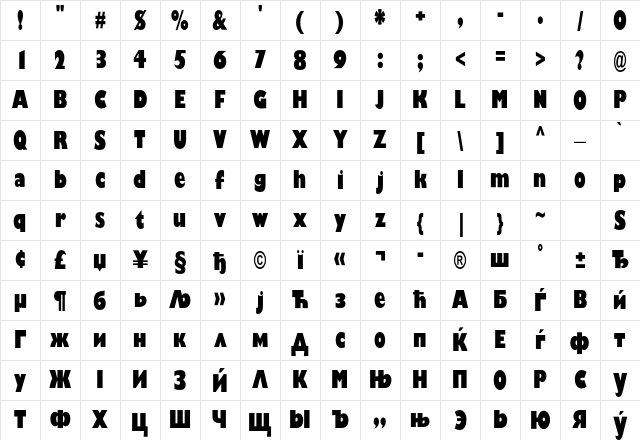
GillSansSA-UltraBoldCondenced Regular
Design Context for GillSansSA-UltraBoldCondenced
GillSansSA-UltraBoldCondenced is a composed and adaptable typeface that performs quietly and consistently across a wide range of design contexts. Its bold stroke weight gives it real presence on the page. Its narrow stance lets it pack a punch even in space-constrained designs.